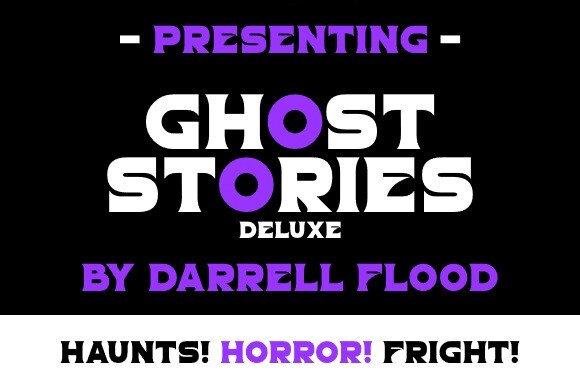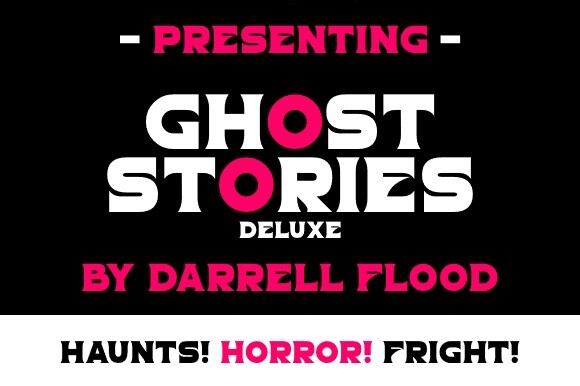
Ghost Stories Font
Ghost Stories Font is a fascinating and dynamic headline font with a commanding presence and timeless elegance. Each letter strikes a perfect blend of boldness and finesse. The finely weighted strokes offer a sense of stability, making it an excellent choice for imposing headlines, titles, and banners that need to make an impact.